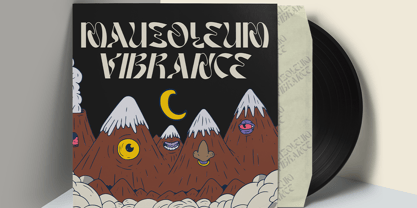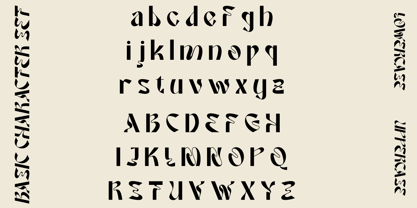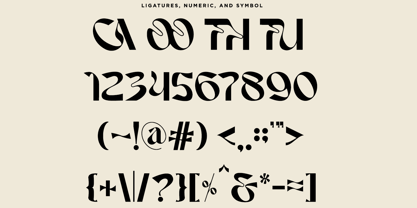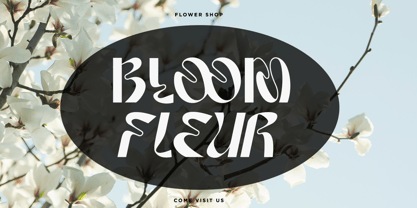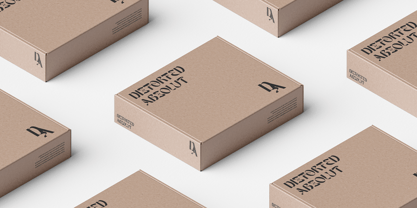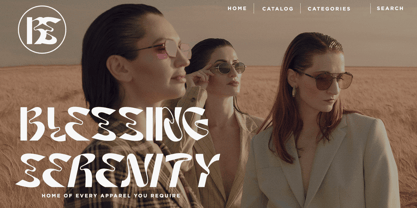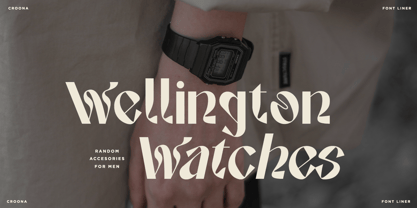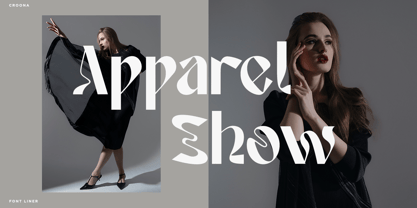
Croona
par Font Liner
La famille de polices Croona a été conçue par Ghina Luthfiarieska et publiée par Font Liner. Croona contient 2 styles et options de package familial.
Croona is an Unique Display Font — a highly stylized typeface with over the top psychedelic vibes. One of a kind, certainly not the kind of typeface you see everyday. Utterly unique. A good choice for a bold soul.